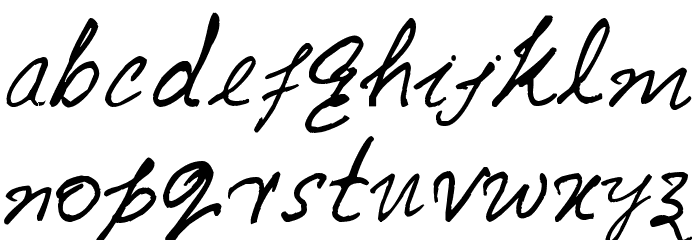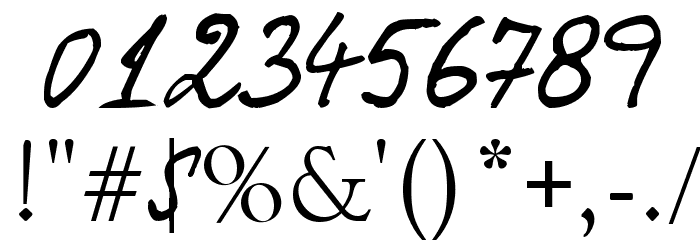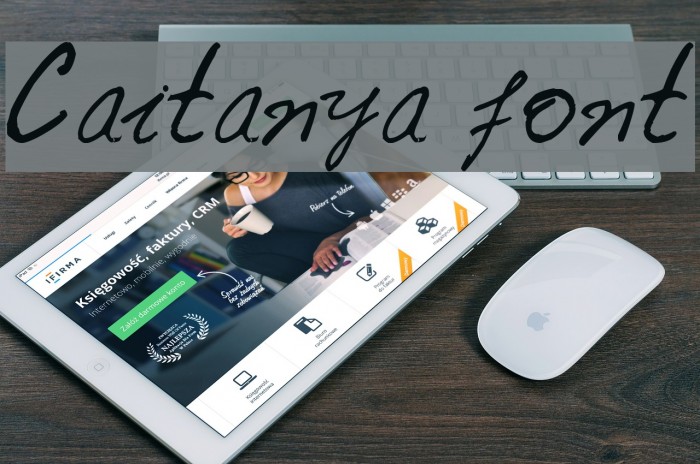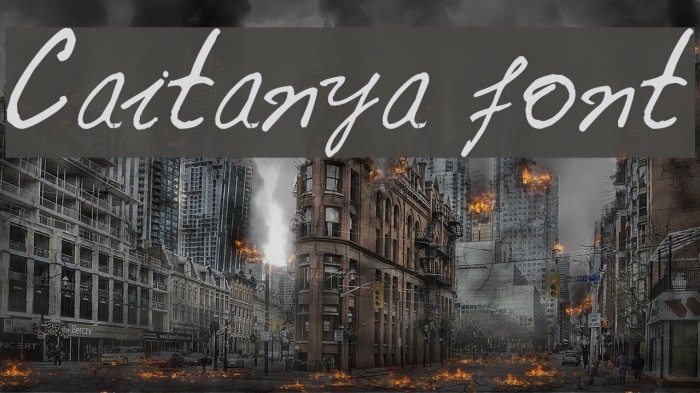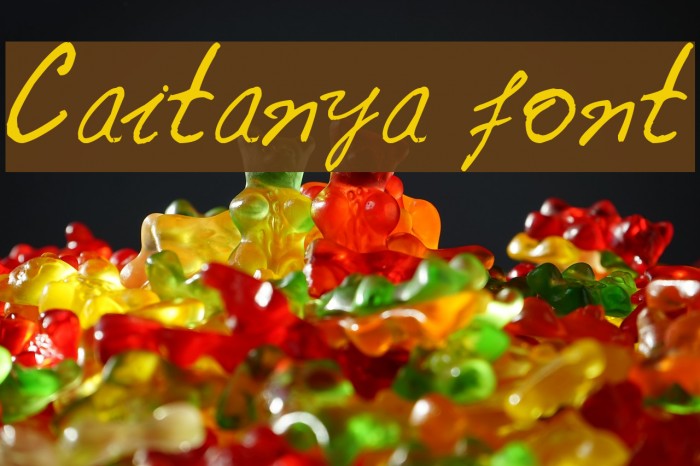
Caitanya font Font
This font exhibits a dynamic and expressive handwritten style, characterized by its fluid and cursive letterforms. The strokes are varied, with a noticeable slant that adds a sense of motion and elegance. The uppercase letters are bold and prominent, while the lowercase letters maintain a consistent flow, enhancing readability. Numbers and special characters are crafted with the same attention to detail, ensuring uniformity across the typeface. The overall appearance is both artistic and legible, making it suitable for creative and informal applications.
A dynamic, cursive handwritten font with fluid strokes and a slanted style.
- Proposed Projects: Ideal for greeting cards, invitations, personal branding, and artistic projects.
- Use Case: Logos, Headlines, Invitations